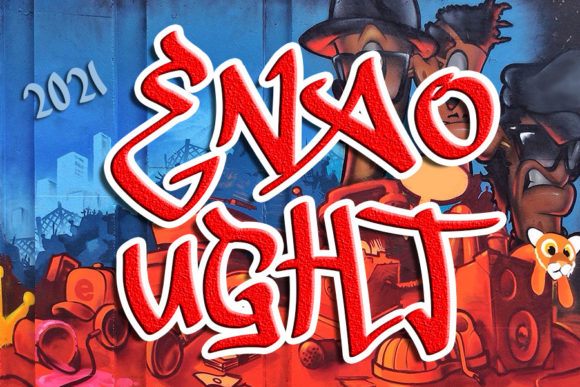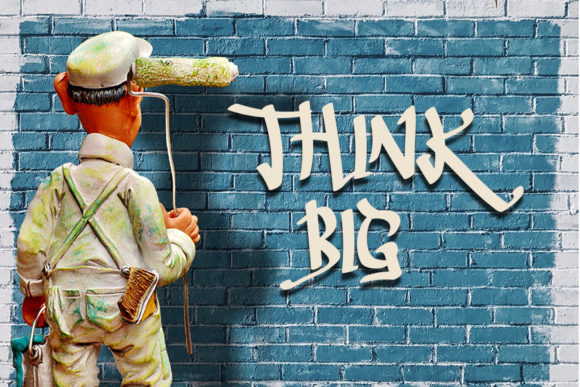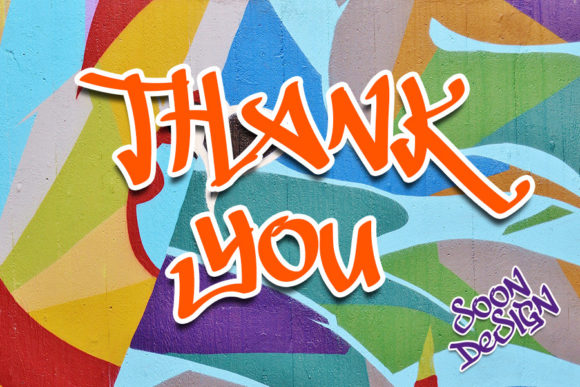
Introducing Endlove Font: The Ultimate Urban Display Font for Creatives
Are you tired of using the same old fonts for your designs? Do you want to add a touch of urban coolness and edginess to your creations? Look no further than Endlove Font, a graffiti-inspired display font that’s sure to make your designs stand out from the crowd.
What is Endlove Font?
Endlove Font is a modern, urban-styled display font that’s perfect for designers, crafters, and artists who want to add a bit of drama and flair to their work. With its graffiti-inspired aesthetic, this font is ideal for creating eye-catching headlines, titles, and captions that demand attention.
Key Features of Endlove Font
- Graffiti-inspired design: Endlove Font takes its cues from the vibrant, edgy world of graffiti, giving it a unique and instantly recognizable style.
- Urban coolness: This font exudes a sense of urban coolness, making it perfect for designs that need a bit of attitude and swagger.
- Dramatic flair: With its bold lines and expressive letterforms, Endlove Font adds a touch of drama to any design, making it perfect for headlines, titles, and other display text.
- Highly versatile: Whether you’re designing a logo, poster, or social media graphic, Endlove Font can be used in a wide range of applications.
Who is Endlove Font for?
Endlove Font is perfect for a wide range of creatives, including:
- Graphic designers: If you’re looking for a font that will help your designs stand out, Endlove Font is a great choice.
- Artists and illustrators: This font is ideal for adding a touch of urban coolness to your artwork.
- Crafters and scrapbookers: Endlove Font is perfect for adding a bit of drama and flair to your craft projects.
- Social media influencers: If you want to create eye-catching social media graphics that will help you stand out from the crowd, Endlove Font is a great choice.
- Experiment with different styles: Endlove Font comes in a range of styles, so don’t be afraid to experiment and find the one that works best for your design.
Tips and Tricks for Using Endlove Font
Here are a few tips and tricks to help you get the most out of Endlove Font:
- Use it sparingly: Endlove Font is a bold and dramatic font, so use it sparingly to avoid overwhelming your design.
- Pair it with a simple font: Pair Endlove Font with a simple font to create visual interest and add depth to your design.
- Experiment with different colors: Endlove Font looks great in a range of colors, so don’t be afraid to experiment and find the one that works best for your design.
Endlove Font is a cool and urban-styled display font that’s perfect for designers, crafters, and artists who want to add a bit of drama and flair to their work. With its graffiti-inspired aesthetic and highly versatile design, this font is sure to make your creations stand out from the crowd. So why wait? Download Endlove Font today and start creating eye-catching designs that demand attention.